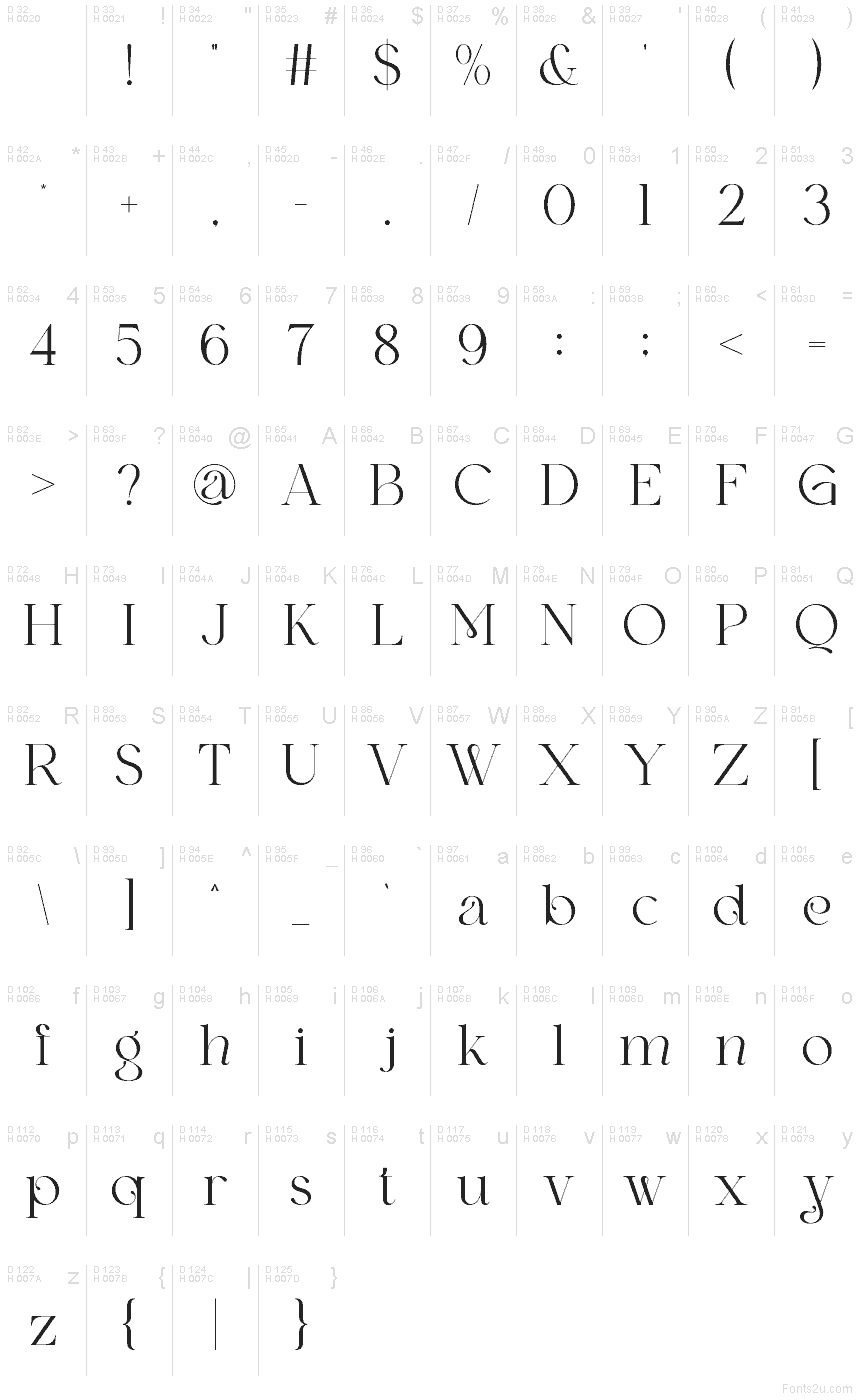
Raiken Regular
Raiken font by Ermedia Studio is a free vintage serif display font. Built around sharp contrast and sculpted curls, it blends knife-thin hairlines with velvety, teardrop flourishes that feel both refined and a touch indulgent. The spacing breathes just enough to keep those high-contrast strokes crisp, giving headlines a poised, boutique finish without feeling fussy.
Using Raiken, you’ll get standout results on wine labels, boutique logos, beauty packaging, editorial headers, event invitations, and statement posters. Set it large to let the inky swashes sing, and give it a hint of tracking for air. This free font also pairs beautifully with a quiet geometric sans to handle body copy or small captions.